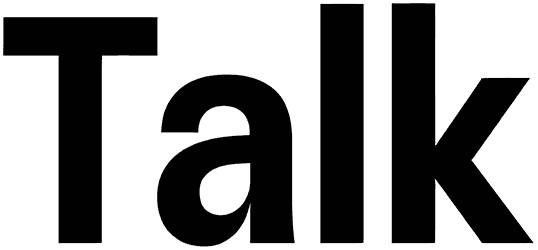
ZT Talk Font
Looking for the ultimate modern font to enhance your typography with its distinct letterforms? Then you could have just asked for ZT Talk. Here to sweep you off your feet with its 2 styles, this poster font is the perfect match for your travel agencies, finance companies, YouTube channels, and so on.
This sans serif font takes a straightforward approach to get people’s attention from the very first and today’s marketplace is filled with plenty of examples of how effective that is.
Behind every character lies an extraordinary story. ZT Talk is not just a font; it is a silent witness to a journey filled with struggle and courage to create something unforgettable.
– 80 Styles: Offering a wide collection of 80 unique styles, ZT Talk provides unparalleled flexibility in design.
– 5 Variant Varieties: Condensed, Semi Condensed, Normal, Semi Expanded, and Expanded
– 8 Weights & Italic: Spanning from Light to Black, eight weights provide clear and effective text hierarchy.
– Multi-Language Support: With support for multiple languages and accents, ZT Talk allows you to reach a global audience effortlessly.
– Consistent Cohesion: Despite its many styles, ZT Talk offers consistent visual cohesion throughout its font family, ensuring harmony in your designs.
– Modern and Elegant Design: With a modern touch and sharp angles, ZT Talk exudes an elegant impression suitable for various contemporary design projects.
– Optimal Quality: Carefully crafted for optimal quality, ZT Talk delivers the clarity and perfection expected from a premium font.Note of the author